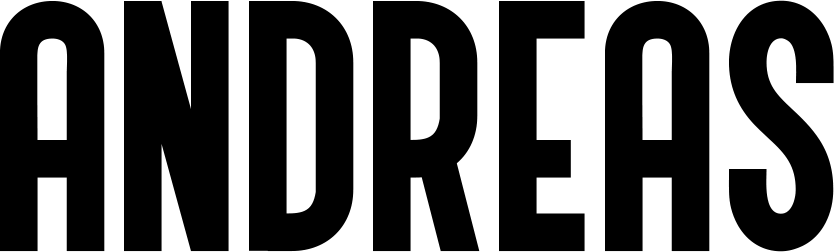
Andreas Font
If you are seeking to have a sociable, playful, and approachable typography, you are going to appreciate Andreas! This sans-serif font will help you create text that all will notice, especially with its thick bold characters.
This American diner font offers capitalized A to Z letters, numbers, and punctuation while leaving aside lowercase alphabets. Apps, games, movies, advertising banners, and posters are a few places to consider while utilizing Andreas. Click to assemble a popular design!